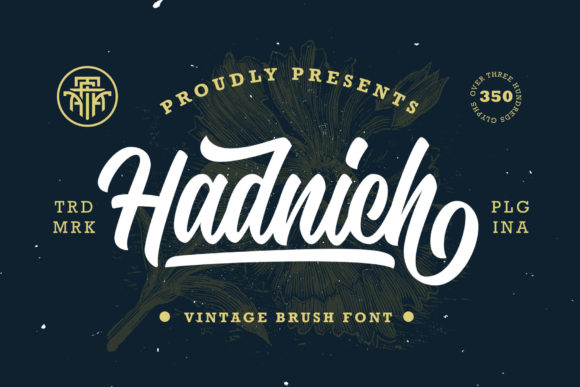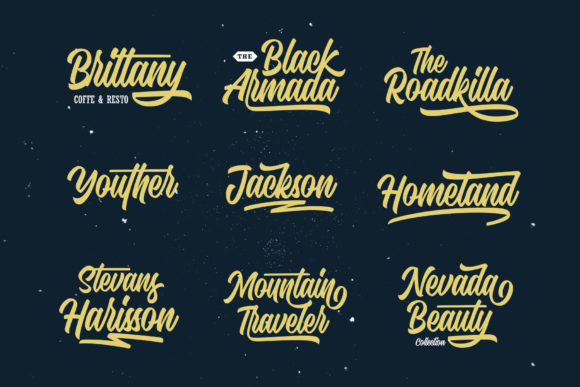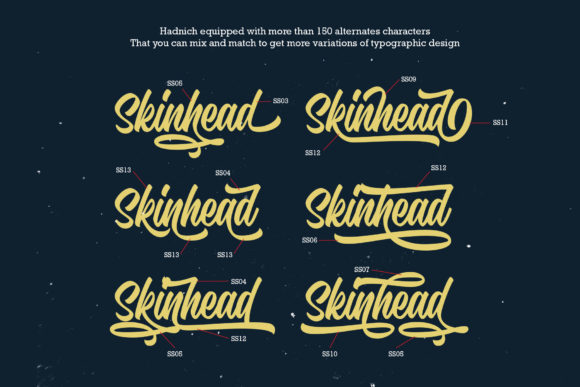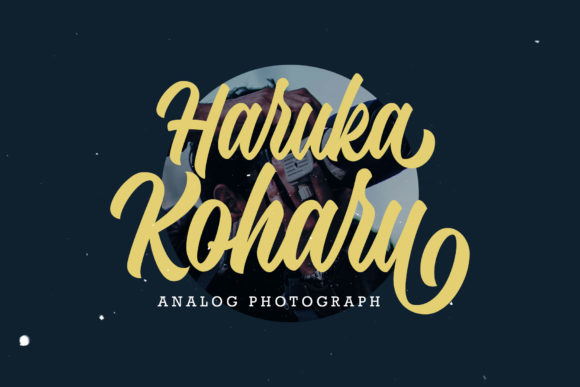
About Hadnich Font
Inspired by the vintage brush typography, Hadnich is a lovely serif font with elegant characters that seem hand-carved. Carefully designed with the taste of old-school paintings, this attractive font is sure to impress! This font is PUA encoded which means you can access all of the glyphs and swashes with ease!